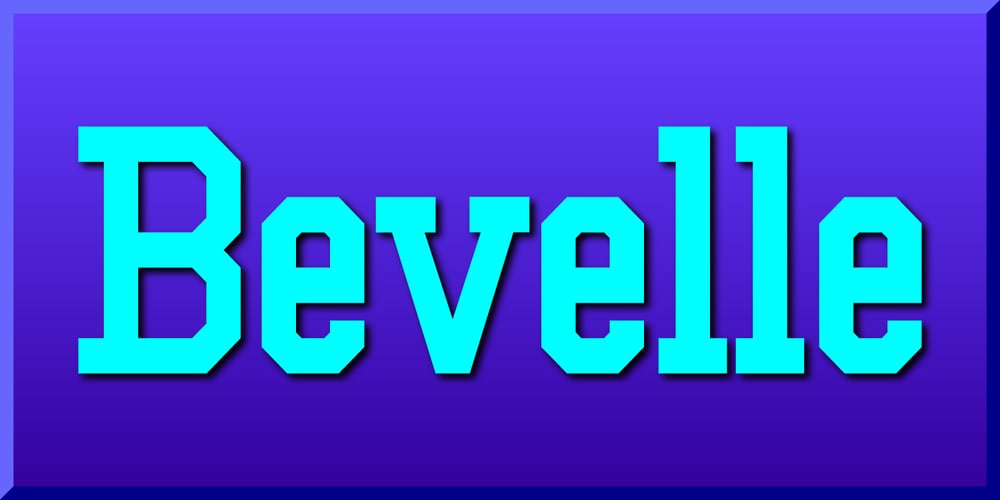
Bevelle Font Family was designed by Gerald Gallo and published by Gerald Gallo. Bevelle contains 1 styles and family package options. Bevelle is a serif font with characters that have beveled corners. It is ideal for headlines, titles, branding, small blocks of text or wherever a clean, fresh look is desired.